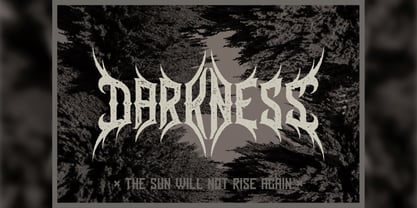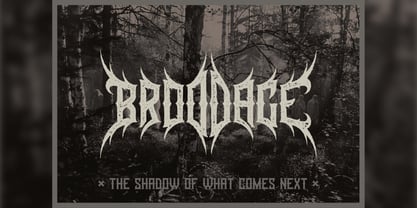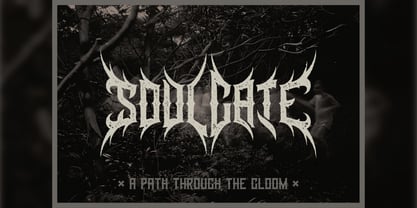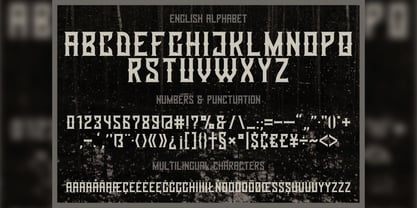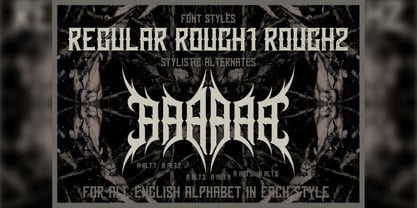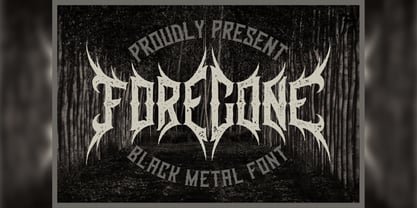
Foregone
by Vozzy
The Foregone Font Family was designed by Oleg Voznyy and published by Vozzy. Foregone contains 3 styles and family package options. More about this family
Introducing the striking font family "Foregone," designed to make a bold statement in headlines and accent inscriptions. This unique typeface is perfect for capturing attention and enhancing your designs. "Foregone" features a comprehensive set of additional characters, punctuation marks, and multilingual options, along with a wide array of alternate characters—ensure your software supports this OpenType feature for optimal use. Elevate your branding, web projects, and editorial designs with the captivating presence of "Foregone."
Designers: Oleg Voznyy
Foundry: Vozzy